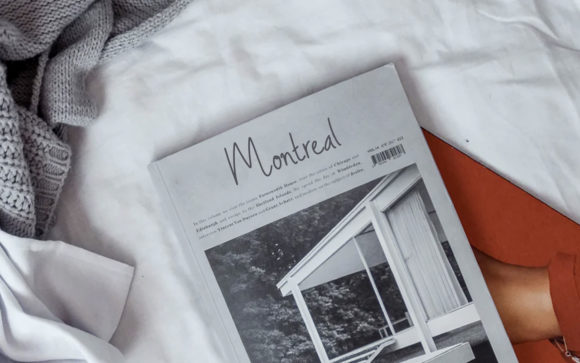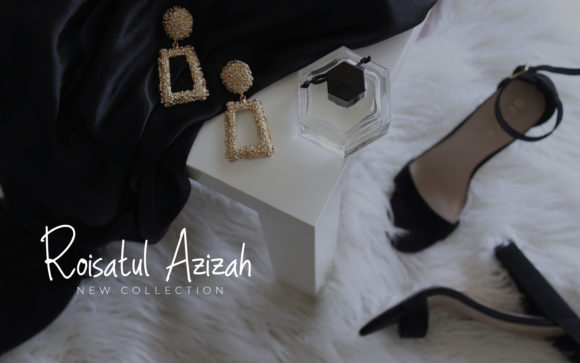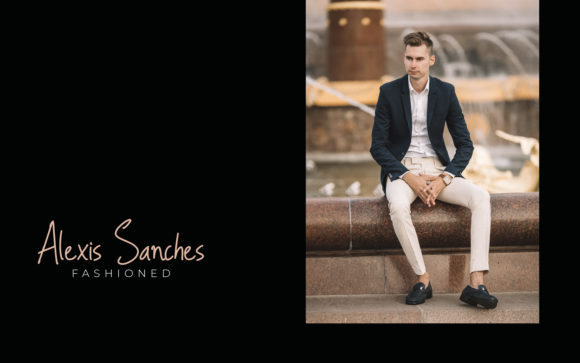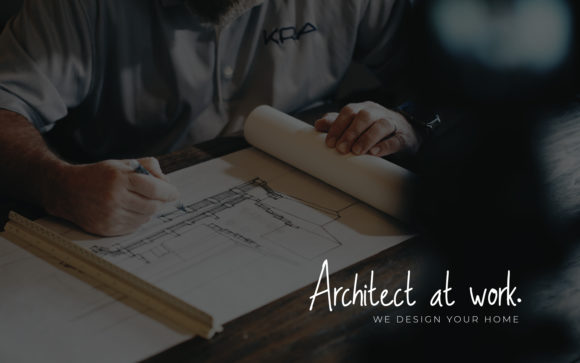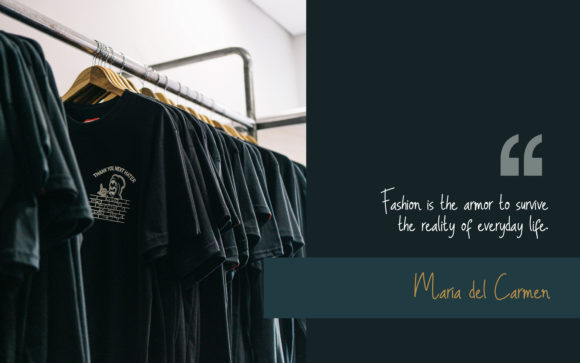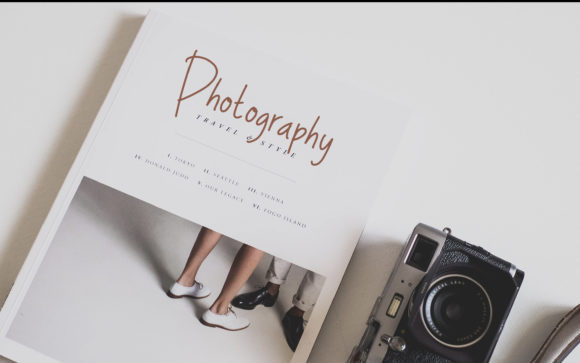
Meet Your New Creative Companion: Alexandra Signature Font
Have you ever stared at a blank canvas, waiting for the perfect font to bring your design to life? We’ve all been there. The blank page can be intimidating, but what if you had a trusted friend to turn to – a font that’s not only stylish but also easy to read? Enter the Alexandra Signature Font, a modern script font designed to make your creative journey a breeze.
This charming font is perfect for casual or informal designs, offering a unique blend of thin lines and friendly curves. With the Alexandra Signature Font, you’ll have endless possibilities to explore, from social media graphics to wedding invitations, and everything in between. Whether you’re a seasoned designer or just starting out, this font is an invaluable addition to your toolkit, offering a level of sophistication and elegance that’s sure to elevate your designs.
- Unique Characteristics: The Alexandra Signature Font features elegant, flowing strokes, and subtle flair at the ends of letters, giving it a distinctive and sophisticated look.
- Style and Versatility: This font is perfect for creating professional, high-end designs, including logos, signatures, and titles, due to its refined and polished appearance.
Designer Review: Alexandra Signature Font
I recently had the chance to work with the Alexandra Signature Font, and I must say, it’s a delightful addition to any design project. ✨ The elegant script style and refined flourishes make it perfect for creating high-end, luxurious designs. From wedding invitations to luxury brand materials, this font shines.
One of the standout features of the Alexandra Signature Font is its versatility. ✨ It comes in multiple weights, from light to bold, allowing you to create contrast and emphasis in your designs. The font also includes a range of language support, making it suitable for global branding and marketing materials.
- Elegant script style perfect for high-end designs
- Refined flourishes add a touch of sophistication
- Multiple weights for added versatility
- Extensive language support
- Some users may find the font too ornate for simpler designs
- Lack of bold, modern alternatives
- May not be suitable for digital displays with low resolution
- Can be overpowered by bold, geometric shapes
Overall, I’m impressed with the Alexandra Signature Font. It’s a great choice for designers looking to create high-end, luxurious designs. While it may have some limitations, its elegant style and versatility make it a valuable addition to any design library.
The Alexandra Signature Font is ideal for creating elegant and sophisticated designs. Use it for:
- Personal branding and signature designs
For the best results, pair the Alexandra Signature Font with high-quality images and a clean design aesthetic.